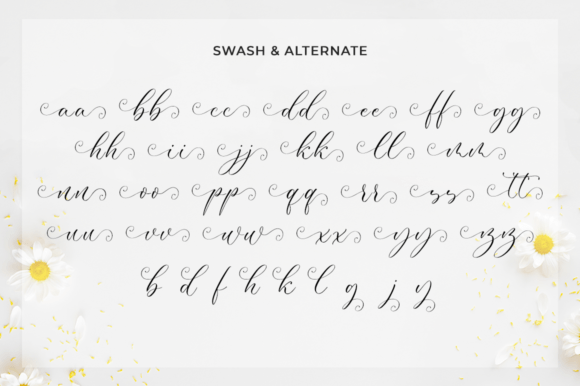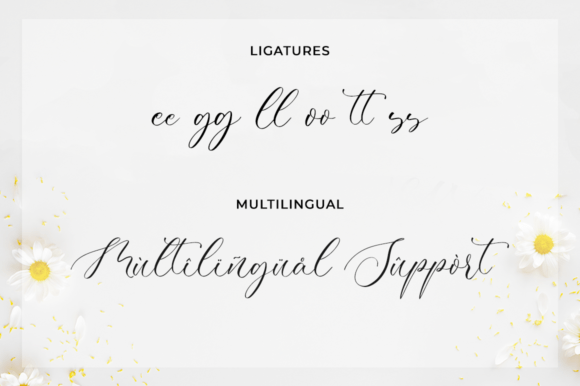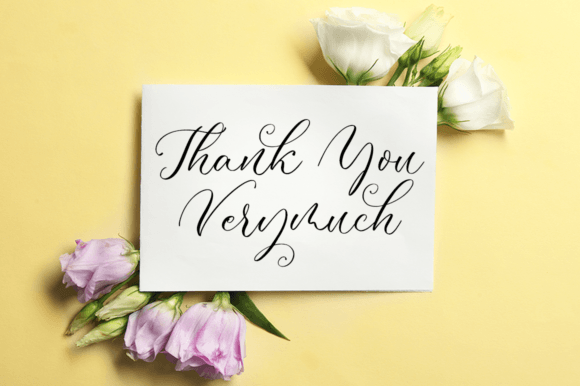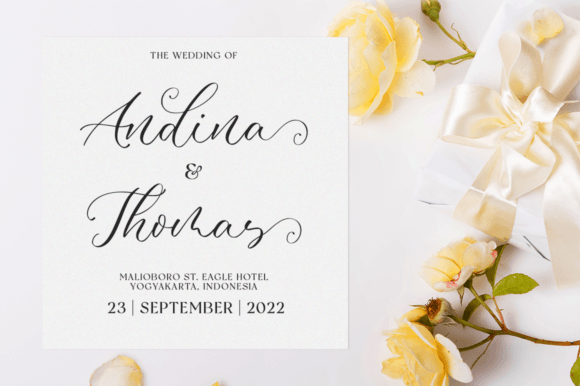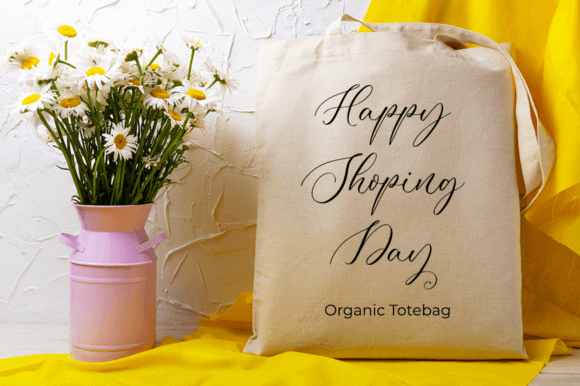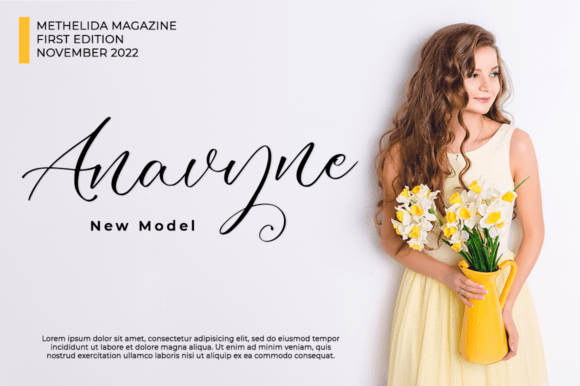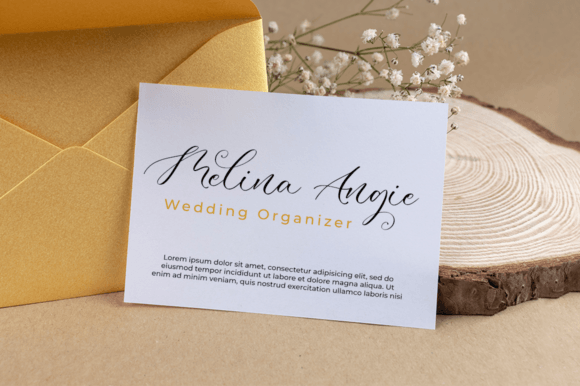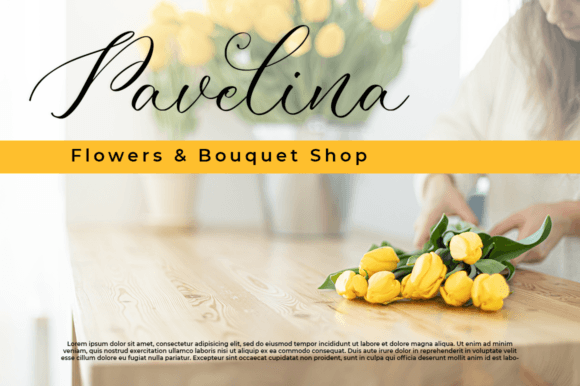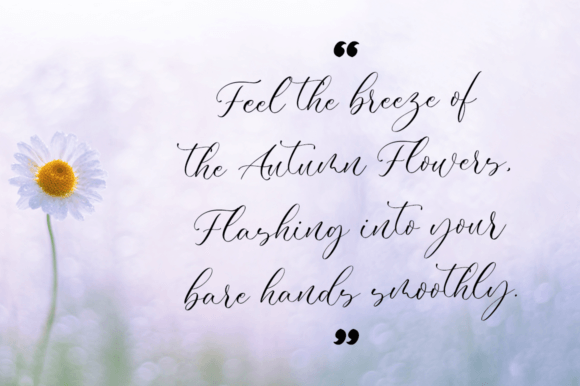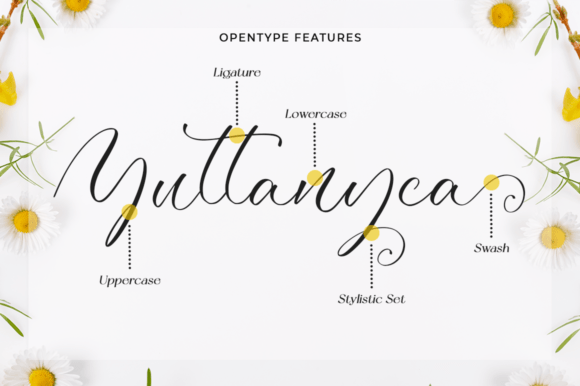
Miralossa Font
About Miralossa Font
Introducing Miralossa, a beautiful script font crafted to bring an elegant and modern look to your creative projects. With its refined style, Miralossa is the perfect choice for logos, branding, invitations, stationery, wedding designs, social media posts, and more, allowing you to make your projects truly outstanding.
Miralossa’s beauty lies in its flowing and sophisticated script, which adds a touch of class and modernity to your designs. The elegant strokes and well-balanced characters make it suitable for a wide range of applications, where you want to convey a sense of refinement and style.
The PUA encoding of Miralossa ensures easy access to all glyphs and swashes, providing you with the flexibility to customize and personalize your designs. This feature allows you to add unique flourishes and details, enhancing the overall visual appeal of your projects.
Visualize Miralossa becoming a key element in your design toolkit, transforming your creative ideas into visually striking and elegant expressions. Envision it on wedding invitations, where it sets the tone for a sophisticated and modern celebration. Picture Miralossa in branding or logo designs, where its refined style contributes to a polished and memorable identity.
In conclusion, Miralossa is not just a font; it’s a beautiful and refined design asset that elevates your creative projects. Download it today and experience how it transforms your designs into expressions of elegance and modernity. Make Miralossa a cherished addition to your font collection, and let it be the key to unlocking a world of sophistication in your designs!